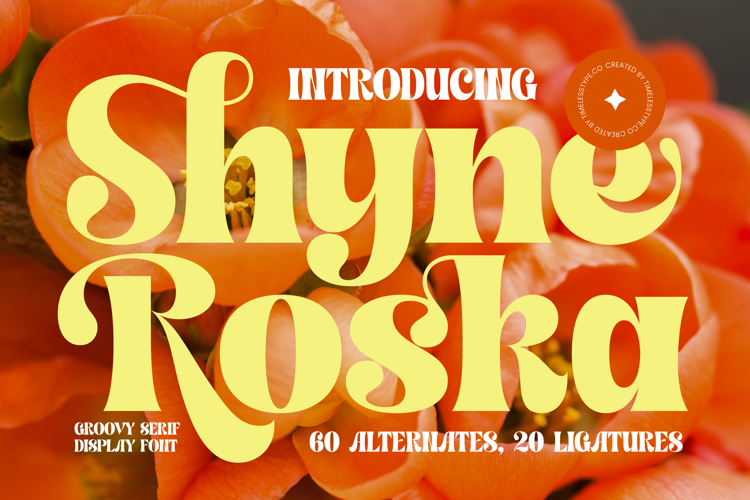
Shyne Roska - Groovy Serif Display Font
Make an unforgettable statement with typography that blends vintage allure and modern sophistication. Introducing Font Shyne Roska - Groovy Serif Display Font Serif Display, a truly distinctive typeface. Its bold, high-contrast letterforms are imbued with a playful yet elegant "groovy" aesthetic, featuring flowing curves and assertive serifs that command attention. This unique display font brings charismatic presence to any design.
Unlock unparalleled creative potential with a font rich in stylistic versatility. Font Shyne Roska - Groovy Serif Display Font Serif Display boasts 60 alternates and 20 ligatures, offering extensive customization for unique headlines and logos. With its extensive multilingual support, Font Shyne Roska - Groovy Serif Display Font Serif Display adapts seamlessly across global markets, making it incredibly versatile for international projects and ensuring broad accessibility.
Elevate your projects with a typeface engineered for impactful visual communication. Font Shyne Roska - Groovy Serif Display Font Serif Display is perfectly suited for luxury branding, high-end packaging, dynamic editorial layouts, and fashion-forward campaigns. It's the ideal choice for magazine headlines, album art, and social media graphics demanding a memorable, distinctive identity, injecting retro charm and contemporary flair.
Infuse your designs with unparalleled character and a touch of timeless elegance. Choose Font Shyne Roska - Groovy Serif Display Font Serif Display to create a visual identity that resonates and leaves a lasting impression. Its bold presence and nuanced details make it a powerful tool for visual storytelling, transforming designs into extraordinary works of art.